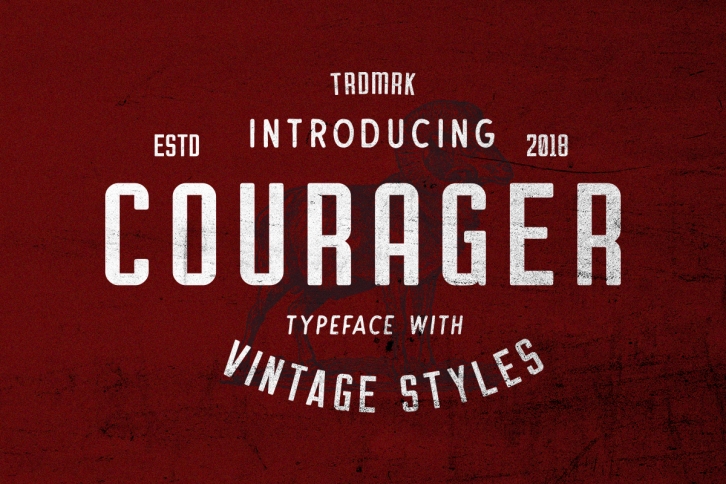
Courager Typeface (8 s!) is a great font that was designed by MartypeCo. Imagine the amount of combinations you can create using this font! The archive is 17.33 MB and it was released on May 14, 2018. Courager Typeface (8 s!) looks beautiful on wedding invitations, greeting cards, logos, posters, labels, t-shirt designs, logos, business cards and is perfect for use in ink or watercolor works, fashion, magazines, packaging and food menus, children's books and more!